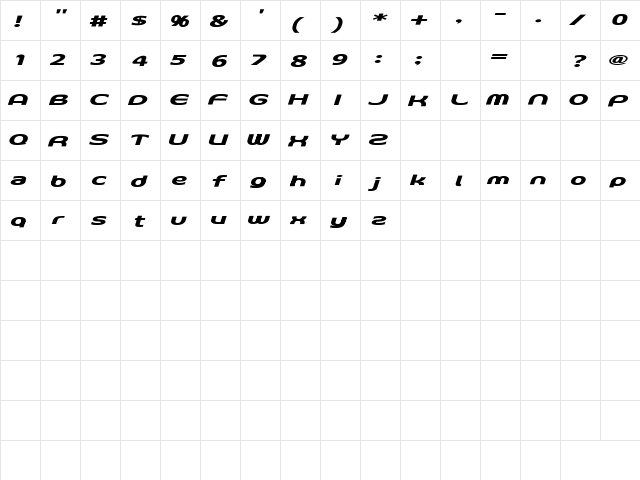
D3 Archism Italic Regular
Design Context for D3 Archism Italic Typeface
D3 Archism Italic offers clean, dependable letterforms without strong stylistic allegiance, making it a practical choice for designers who need flexibility. The slanted form adds forward momentum and visual energy.